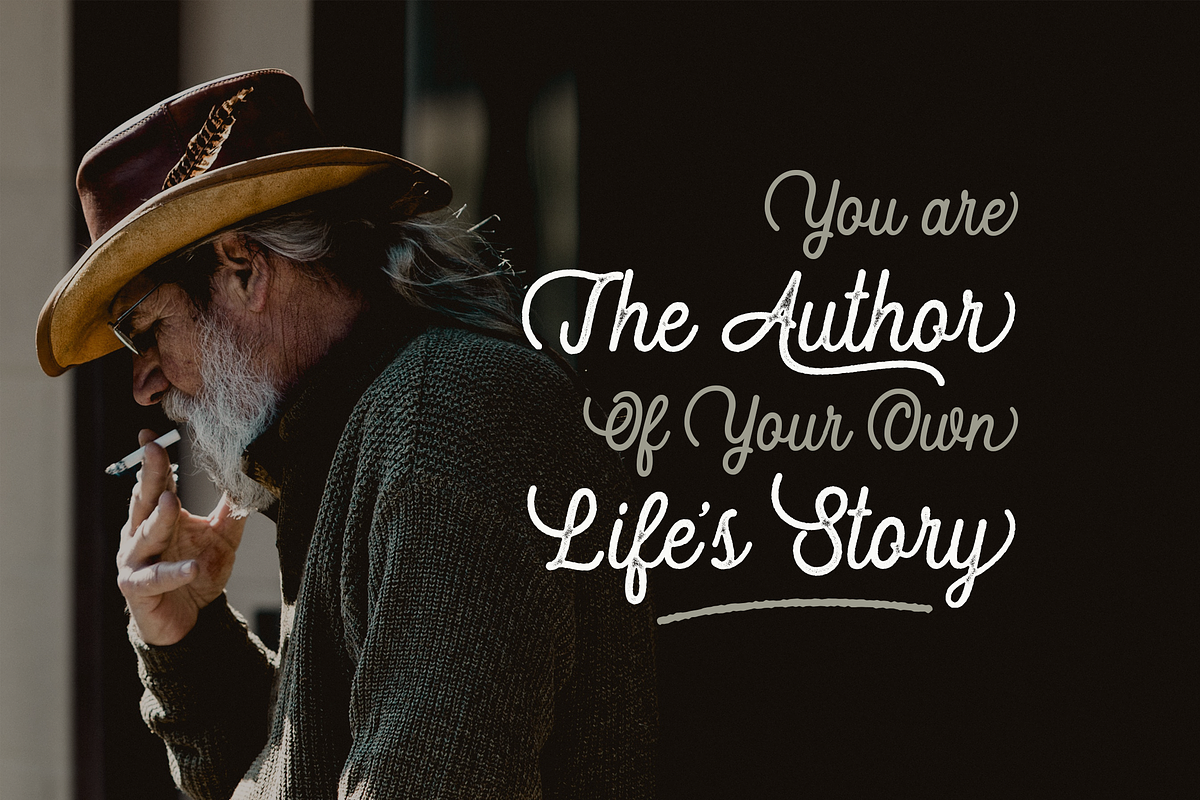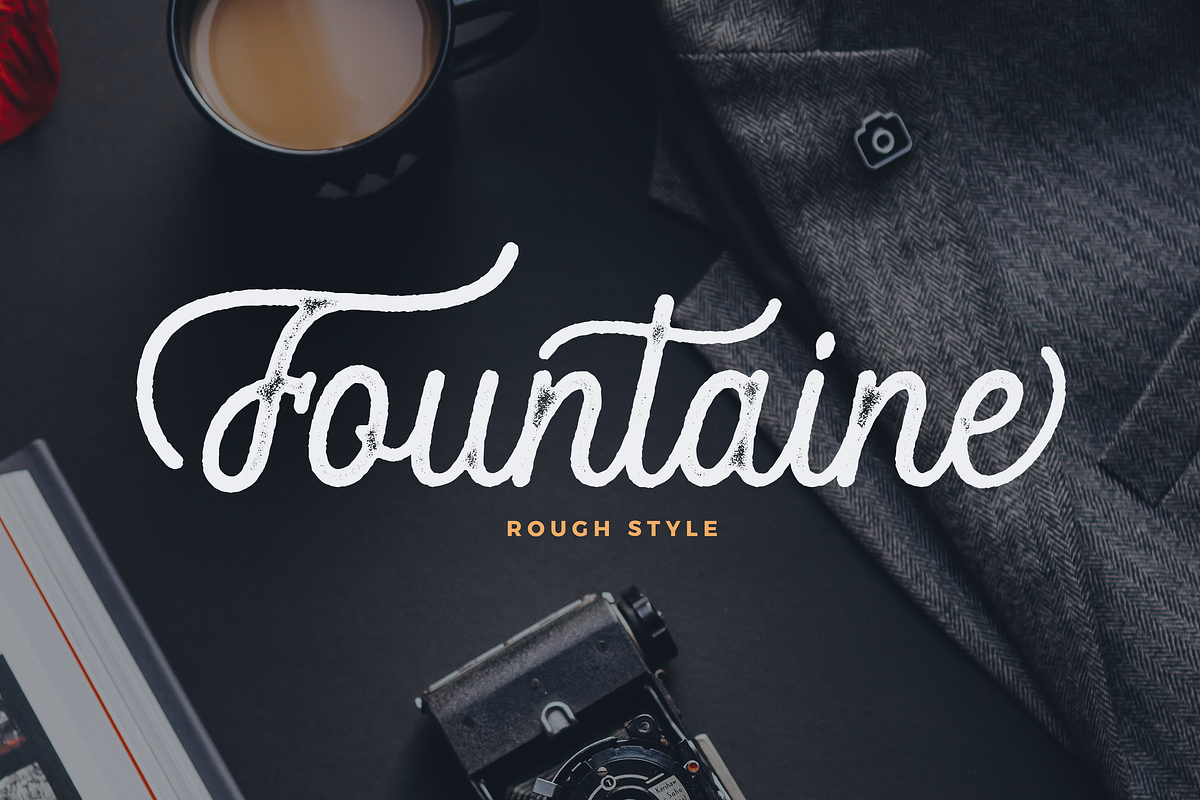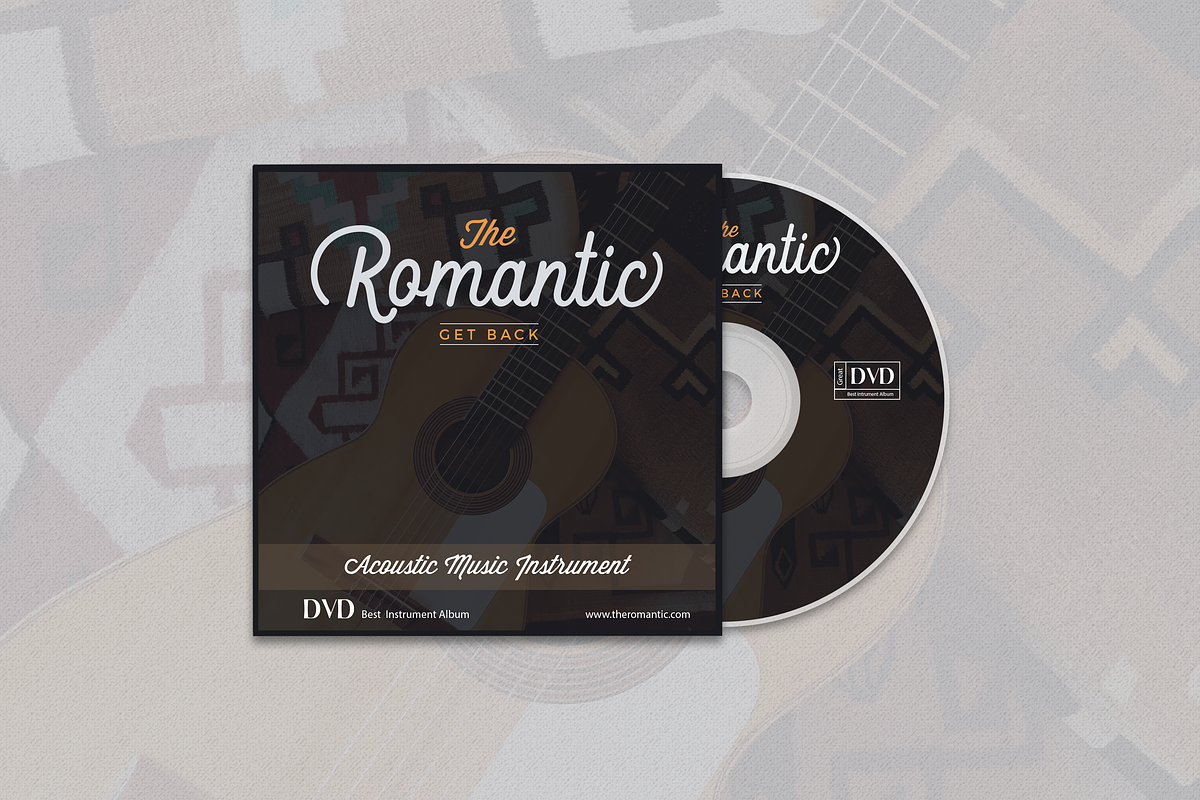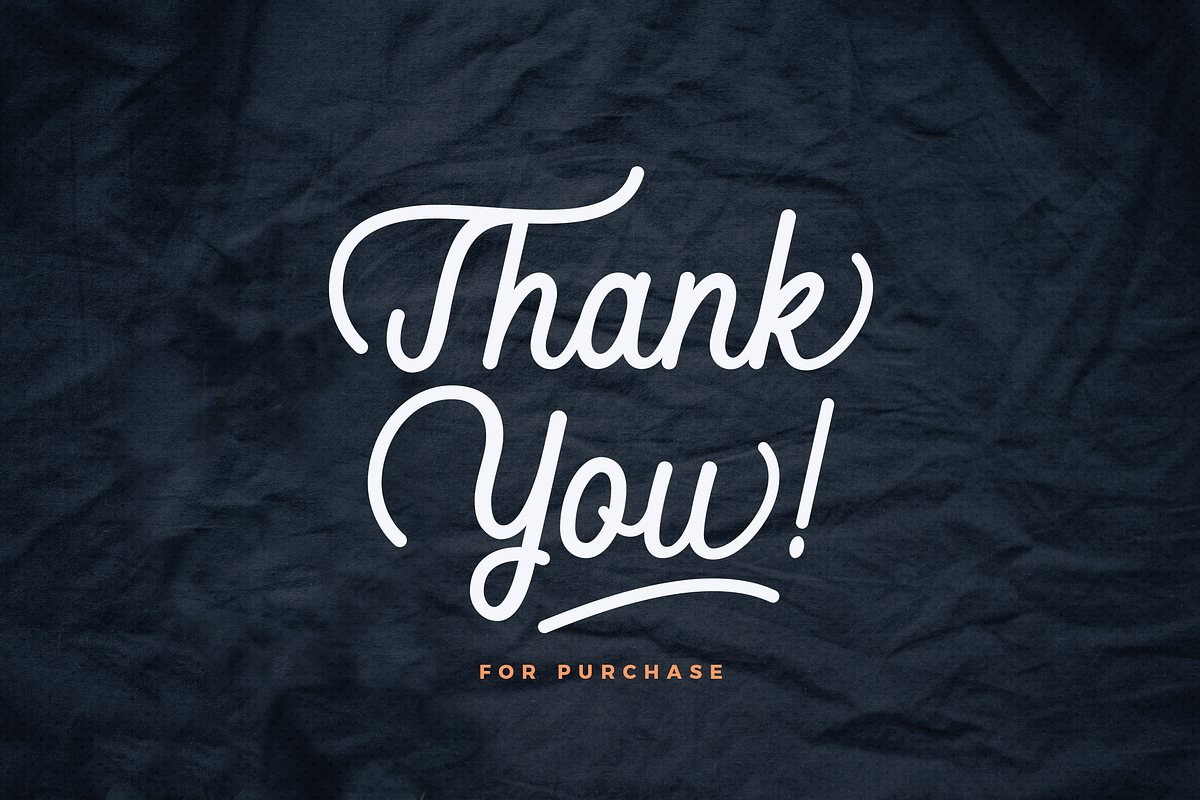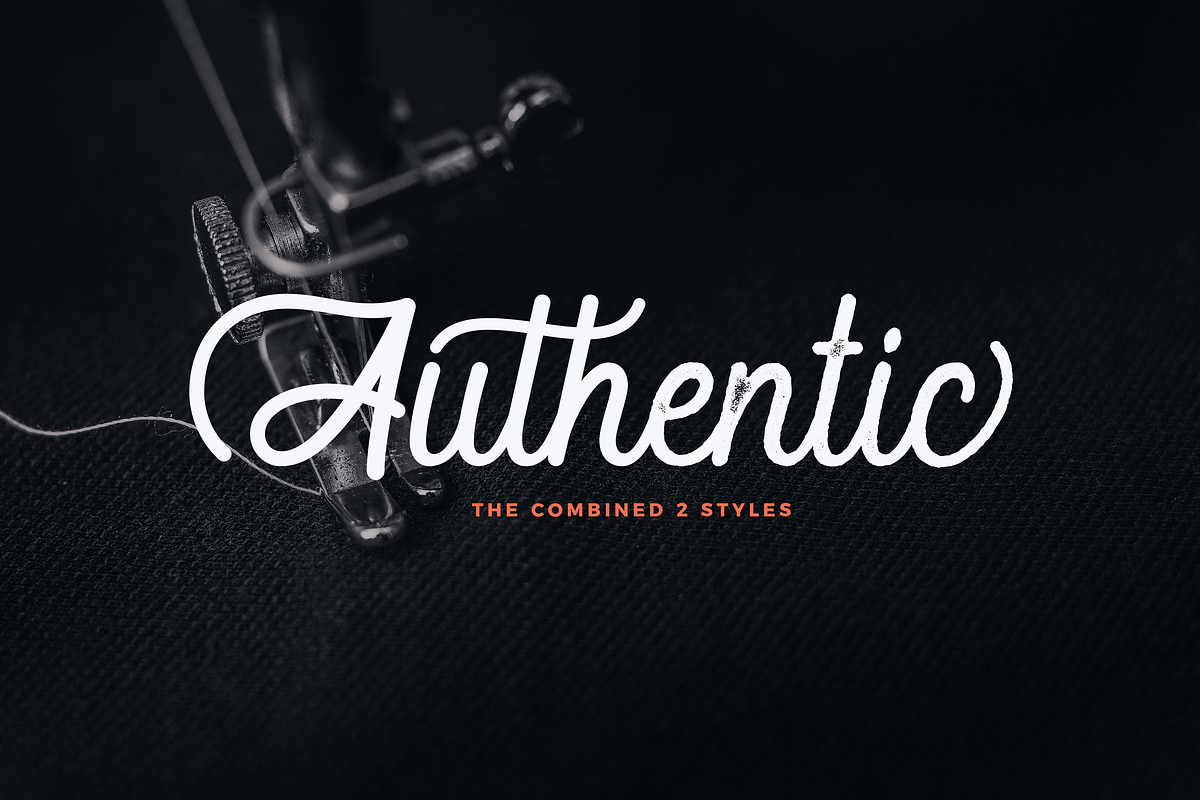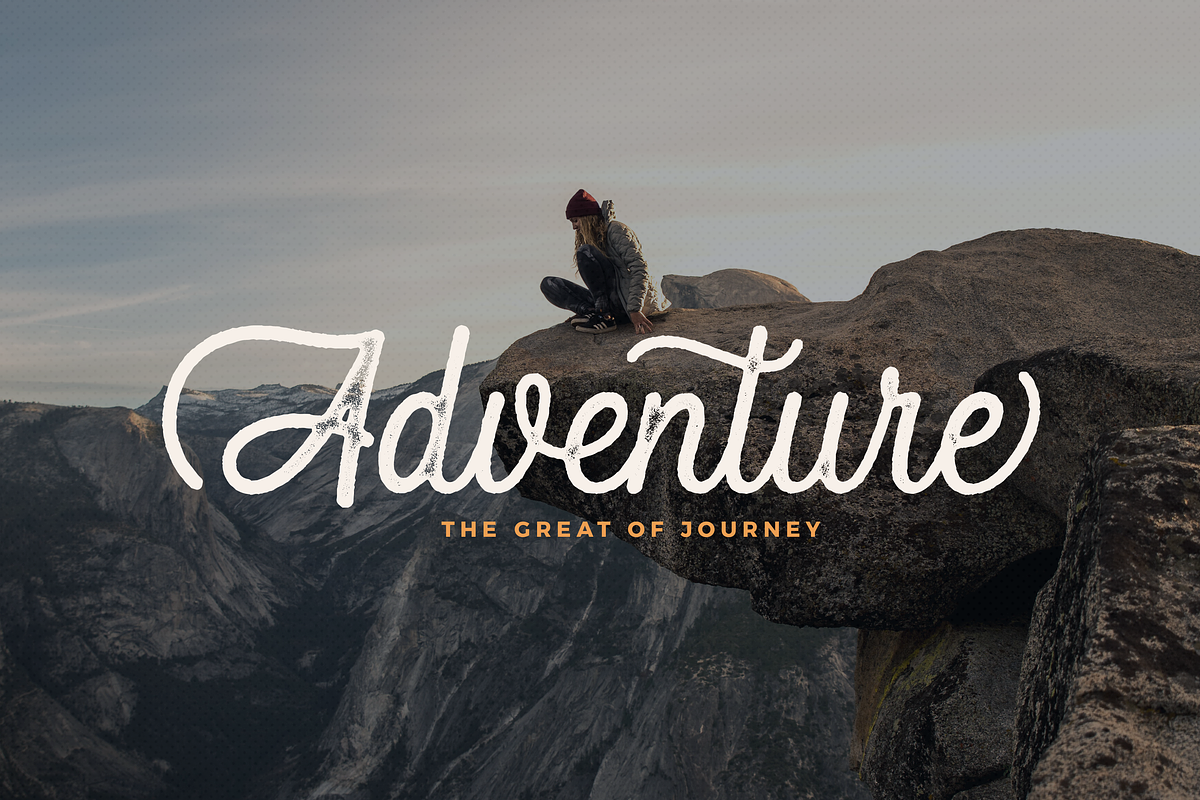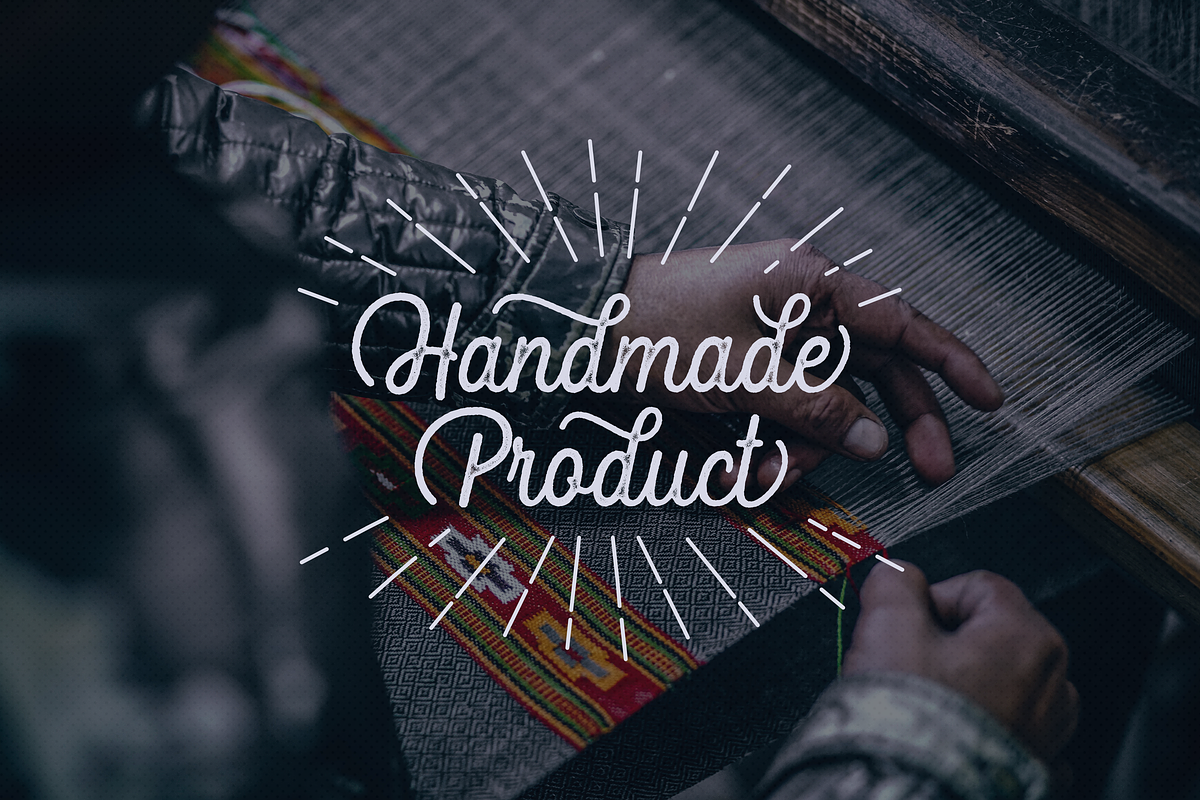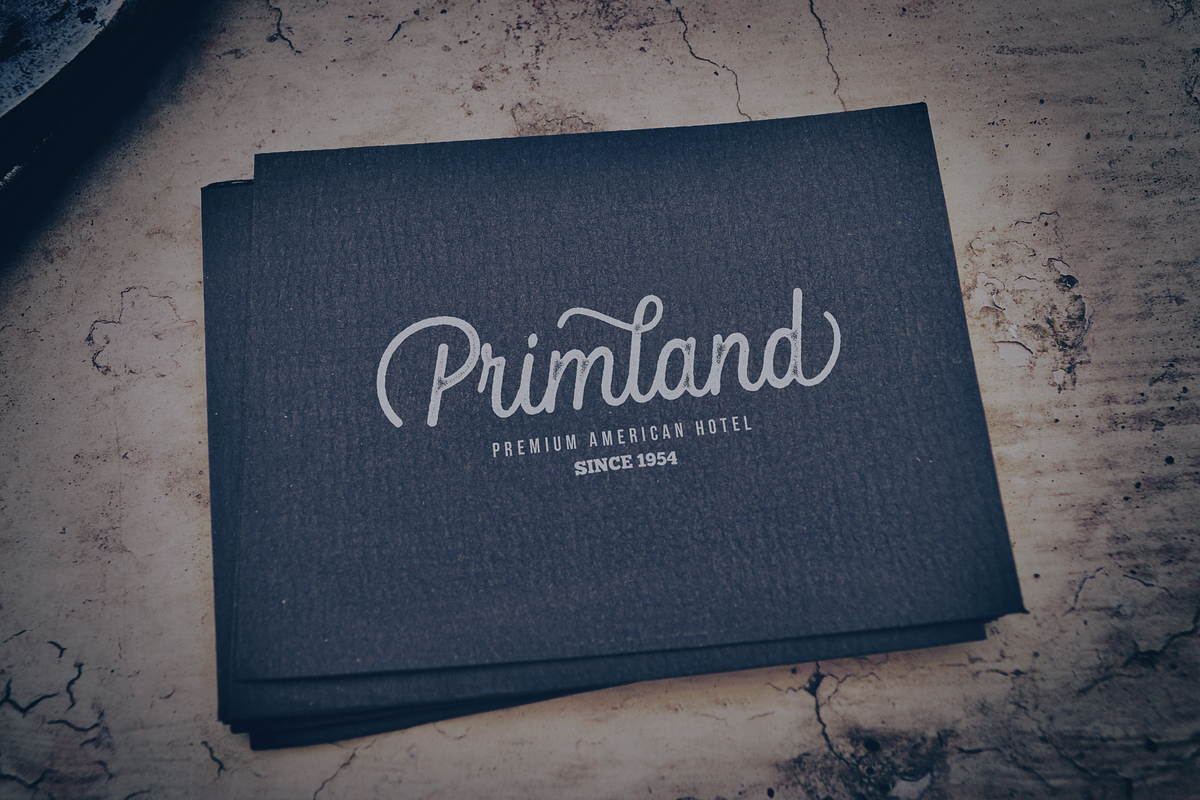
Fountaine Script
Fountaine script is a new and fresh font script that comes with two styles of clean and rough style. so this font can provide an alternative, new sensation and vintage feel for the designer or craftsman, in working on various projects.
This font is perfect for all your project like the wedding invitation, greeting cards, branding materials, business cards, quotes, posters, insignia, badge, greeting cards, vintage logo, or you can use this font for various logo project (logotype) and more!
Fountaine script come with 318 glyphs totally. The alternative characters were divided into several Open Type features such as Swash, Stylistic Sets, Stylistic Alternates, Contextual Alternates, and Ligature. The Open Type features can be accessed by using Open Type savvy programs such as Adobe Illustrator, Adobe InDesign, Adobe Photoshop Corel Draw X version, And Microsoft Word. And this Font has given PUA Unicode (specially coded fonts). so that all the alternate characters can easily be fully accessed by a craftsman or designer through either Windows or Mac computer without any requirement for fancy design software.
- Initial Alternates
- Contextual Alternates
- Unique ligatures
- Stylistic sets
- International Symbols Support